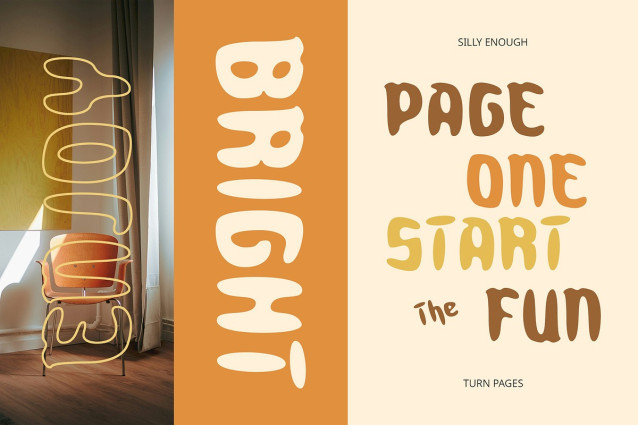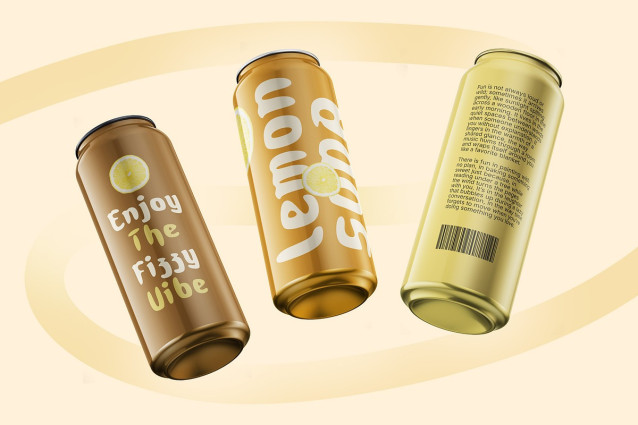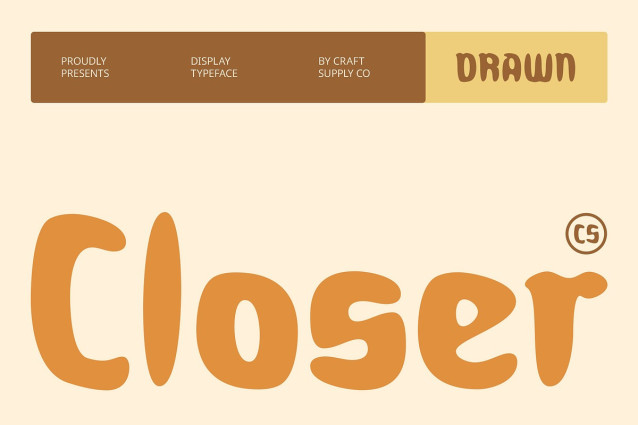
CS Closer Drawn Font – This is a modern gothic display font featuring bold and commanding letterforms. Its structure reflects the weight and drama of classic gothic type while embracing a clean, contemporary attitude.
Hand-Drawn Effect for Artistic Texture The drawn effect adds a raw, handcrafted texture that enhances its expressive character. This detail creates a gritty and authentic feel, making each letter visually engaging and full of personality. What sets this artistic font apart is its drawn effectâan organic, handcrafted texture layered into the design. This rough finish adds a sense of depth and emotion, transforming the clean structure into something expressive, raw, and visually arresting. Each letter feels alive with artistic energy, perfect for designers who want authenticity in their work.
Mysterious, Bold, and Emotionally Charged This font conveys intensity and mood, perfect for projects that seek a mysterious, artistic, or rebellious tone. Its dramatic presence ensures your message wonât go unnoticed. With its bold character and edgy personality, CS Closer Drawn evokes a mood that is dark, emotional, and mysterious.
Ideal for Music, Posters, and Alternative Branding Whether youâre designing album art, bold editorial layouts, or edgy visual identities, this mystery font delivers a unique typographic voice that blends gothic strength with creative flair.